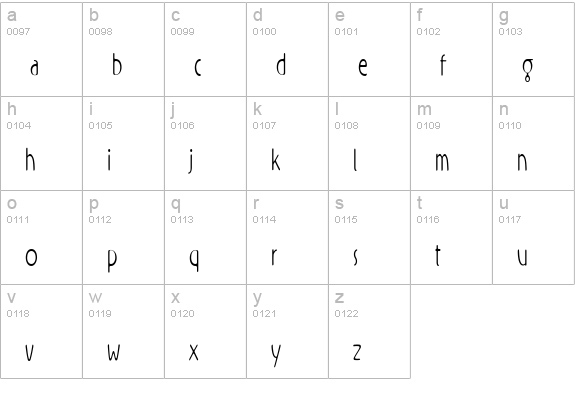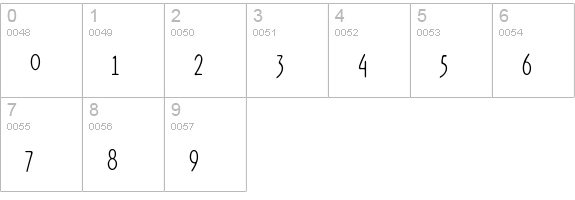
Rx-ZeroZero Font Details
Introducing Rx-ZeroZero font, a modern and sleek typeface designed to make a bold statement in your projects. With its sharp lines and contemporary style, Rx-ZeroZero is perfect for branding, advertising, and more. This versatile font is free to download at FontsMarket.com, allowing you to easily incorporate it into your designs without any cost. Whether you need a font that exudes sophistication or one that commands attention, Rx-ZeroZero is sure to elevate your visuals to the next level. Download it today and unleash the power of this dynamic font in your creative endeavors.